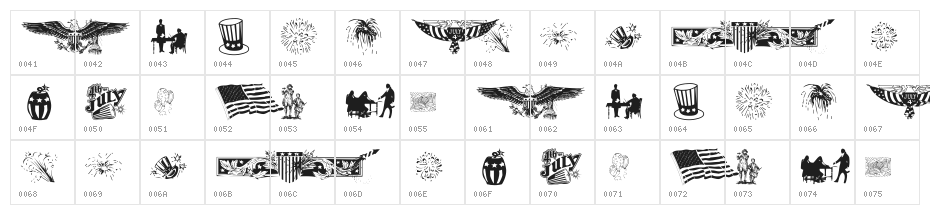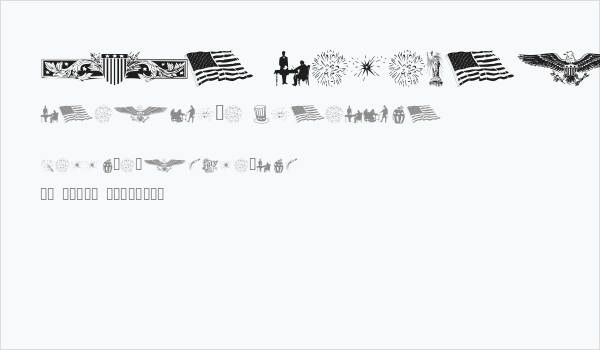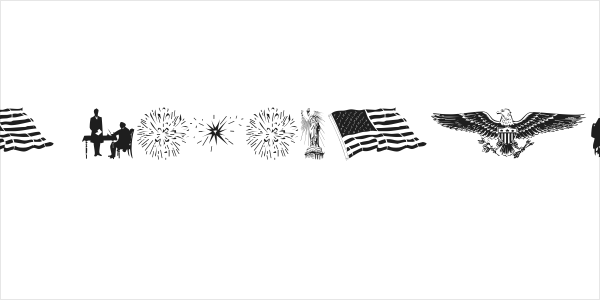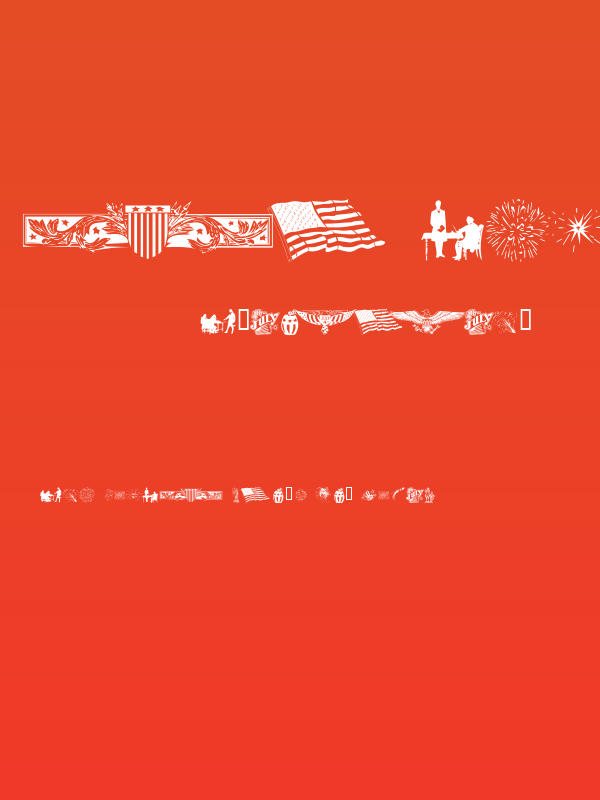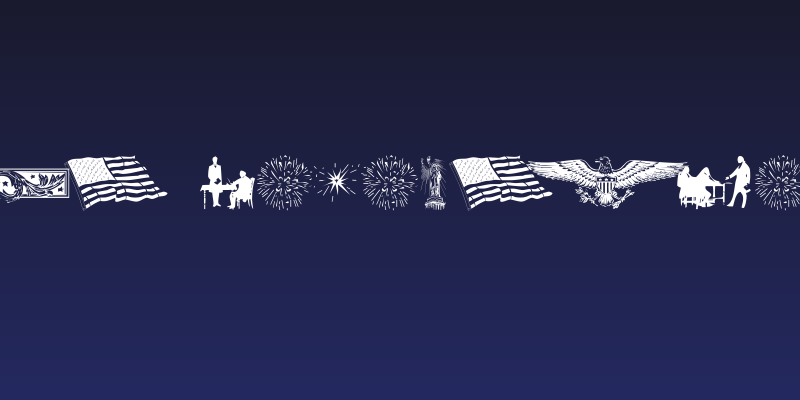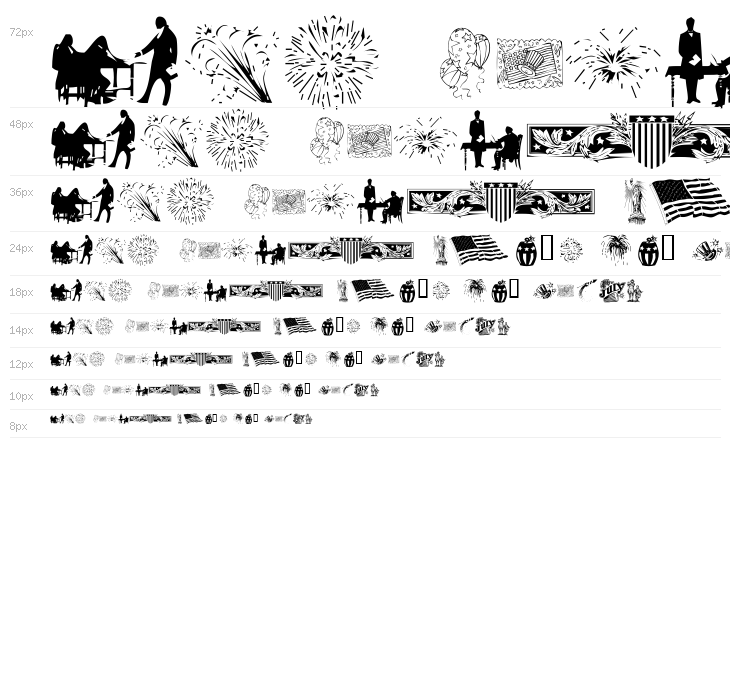
KR Celebrate 2002 Font
KR Celebrate 2002 Description
A decorative dingbat font featuring a variety of patriotic and Independence Day-themed illustrations, including eagles, fireworks, American flags, historical figures, and celebratory motifs. The glyphs are detailed and illustrative, designed for visual embellishment rather than text.
| Overall Style | Decorative, Thematic, Patriotic |
| Use Case | Decorative elements, Themed graphics, Borders, Icons |
| Proposed Projects | Holiday event flyers, Independence Day posters, themed invitations, educational materials, scrapbooking. |